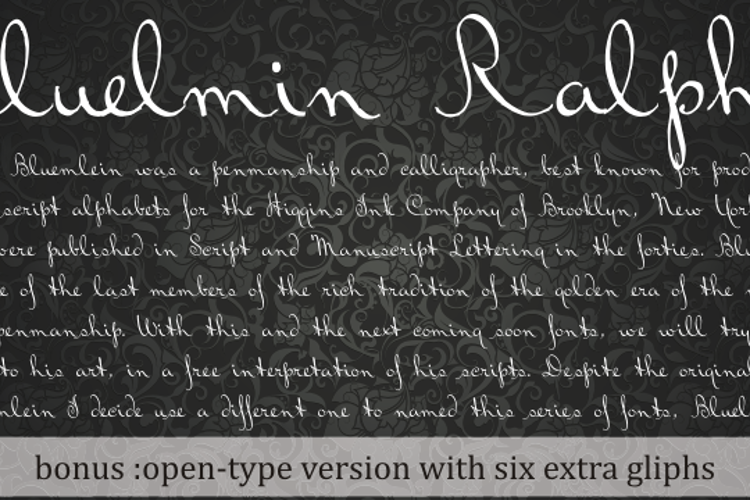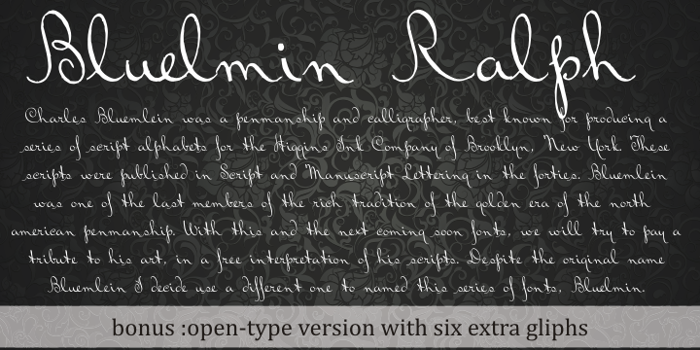
Bluelmin Ralph Font
ABOUT THIS FONT - BLUELMIN RALPH
Charles Bluemlein was a penmanship and calligrapher, best known for producing a series of script alphabets for the Higgins Ink Company of Brooklyn, New York. These scripts were published in Script and
Manuscript Lettering in the forties. Bluemlein was one of the last members of the rich tradition of the golden era of the north-american penmanship. With this fonts and your sisters fonts, we will try to pay
a tribute to his art, in a free interpretation of his scripts. Despite the original name Bluemlein I decide use a different one to named this series of fonts, Bluelmin. THE OPEN TYPE VERSION HAS A BONUS :
six extra gliphs acessible using the gliph pallet or the contextual alternate open type feature and the Special Set 01 feature to alternative designs of "Q", "A" and "Z" gliphs.